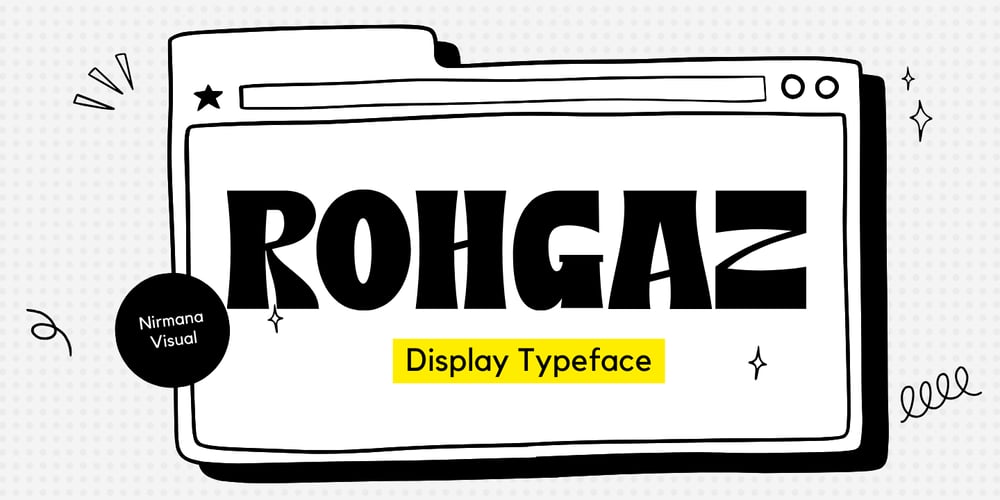
Rohgaz Font Family was designed by Sigit Dwipa and published by Nirmana Visual. Rohgaz contains 1 styles and family package options. Rohgaz often evoke a sense of tradition and timelessness, making them suitable for formal documents, books, newspapers, and high-end branding.